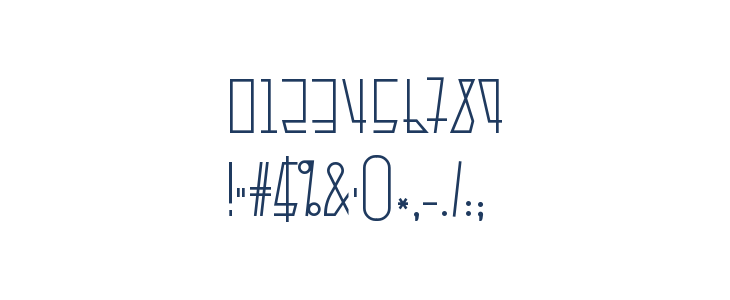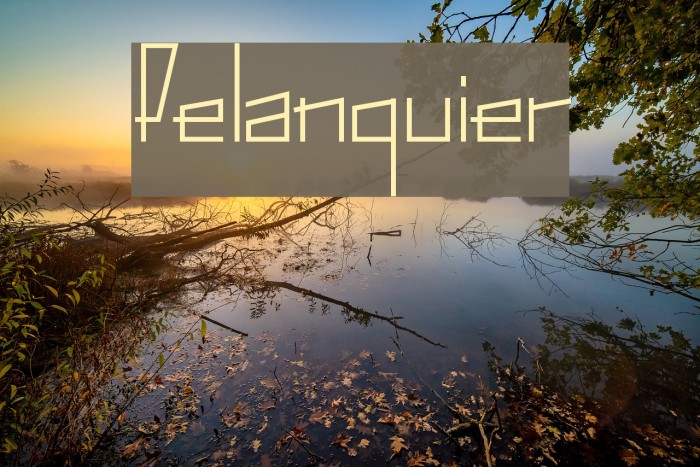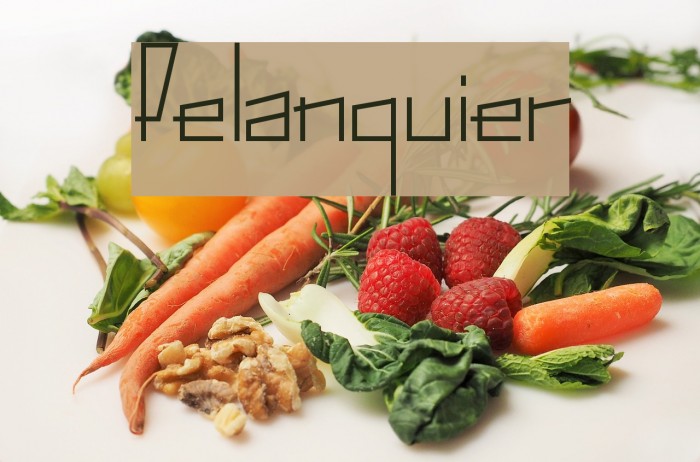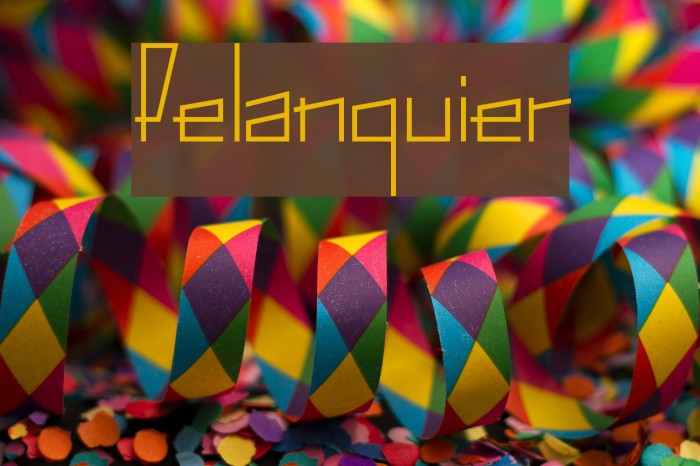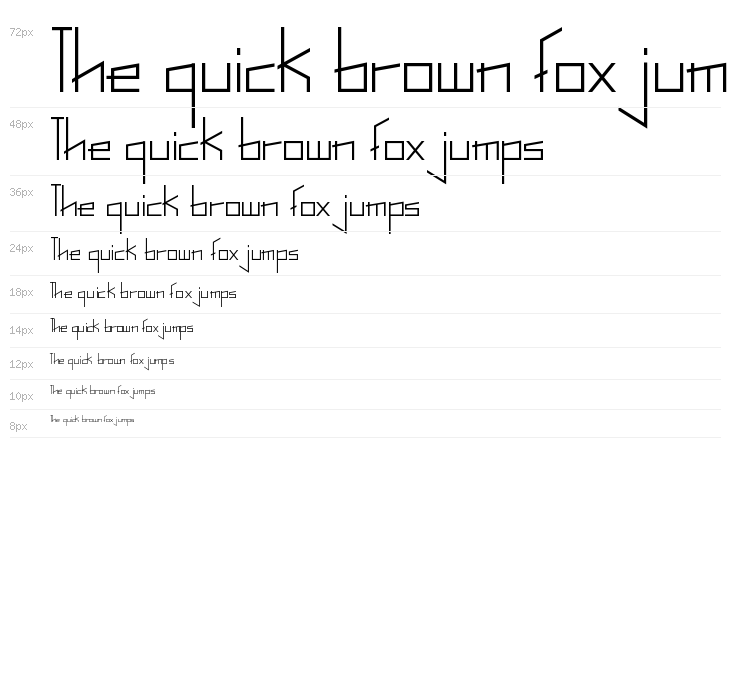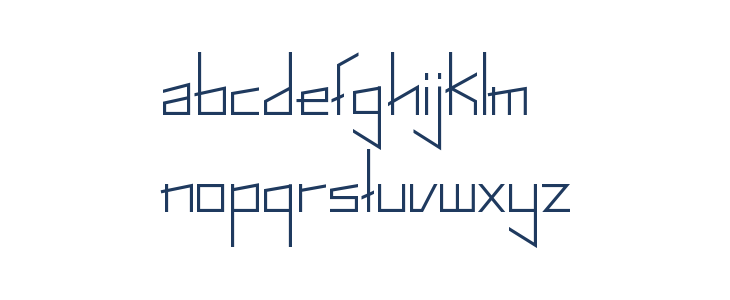
Pelanquier Font
Pelanquier Description
This font features a unique geometric design with angular, straight lines and sharp edges. The characters are constructed with a consistent stroke width, giving it a modern and futuristic appearance. The uppercase letters have a distinct architectural feel, while the lowercase letters maintain a similar style with slightly softer angles. Numbers and special characters follow the same geometric pattern, ensuring uniformity across the entire typeface. The overall design is clean and minimalistic, making it suitable for projects that require a contemporary and edgy look.
| Use Case | Logos, Headlines, Posters |
| Proposed Projects | Ideal for branding, logos, posters, and digital media that require a modern and edgy aesthetic. |